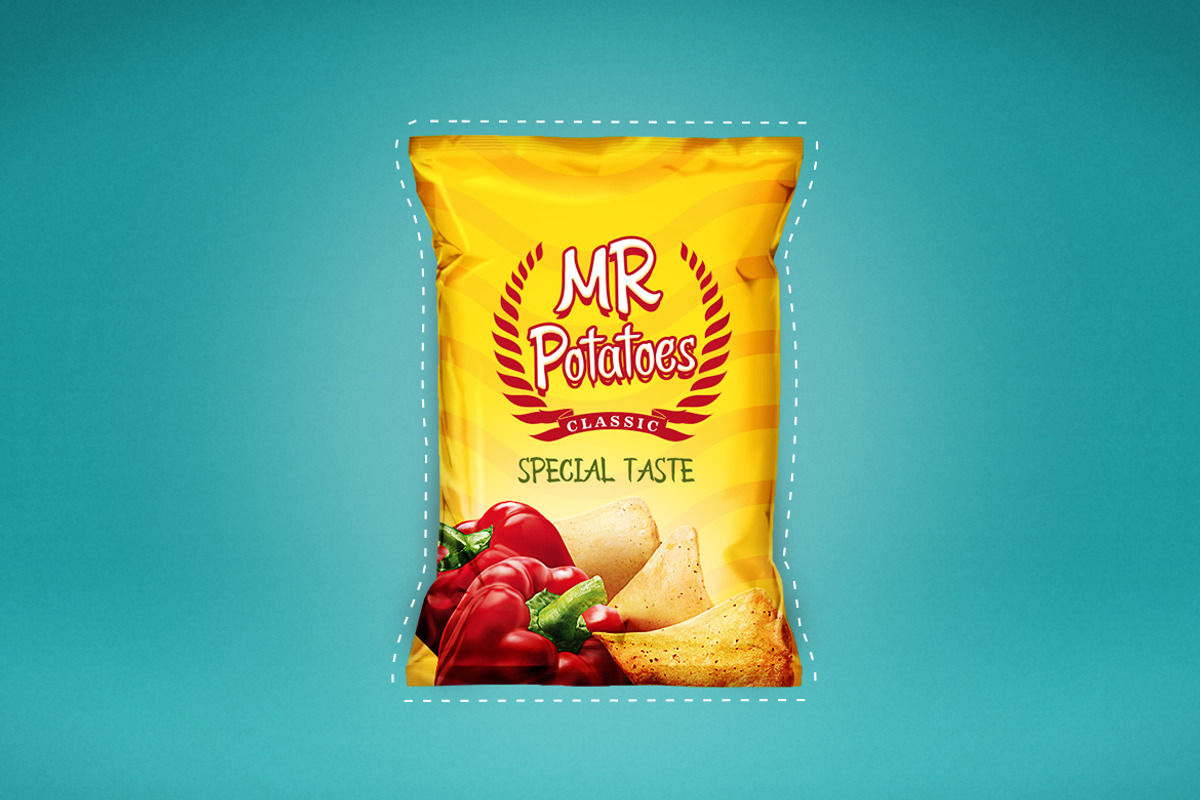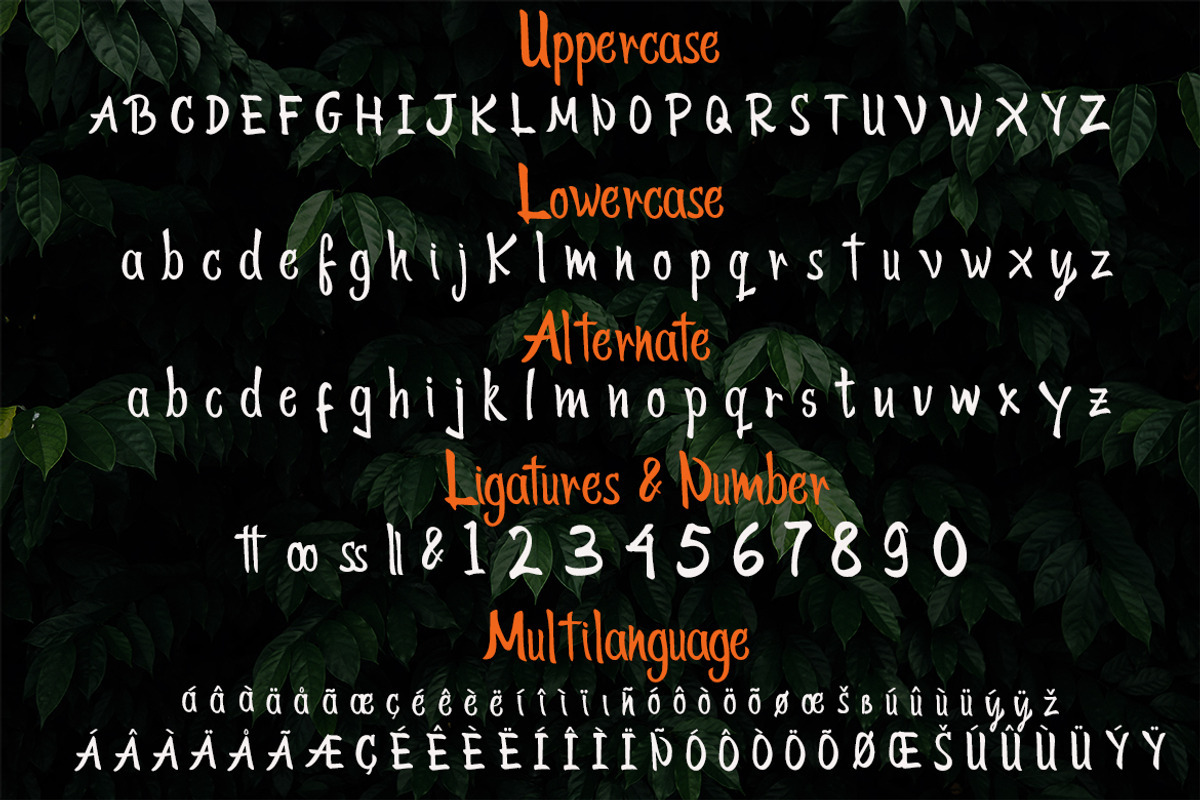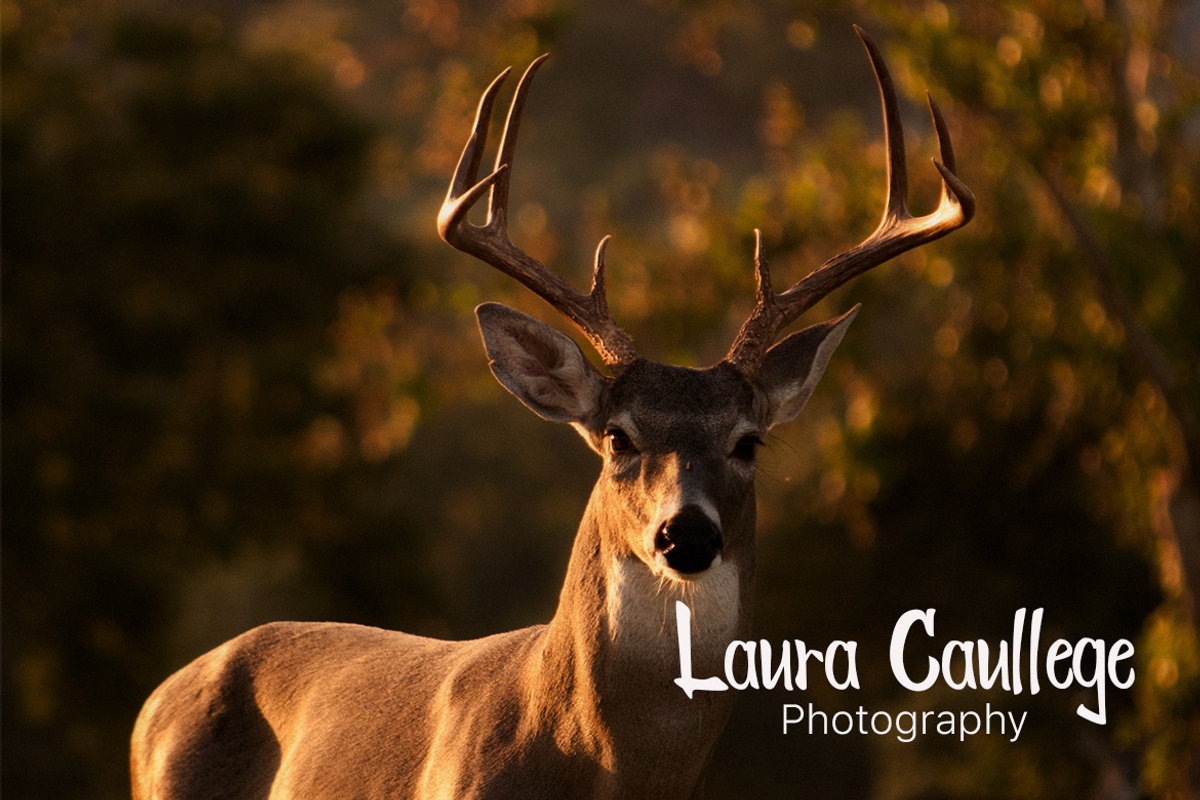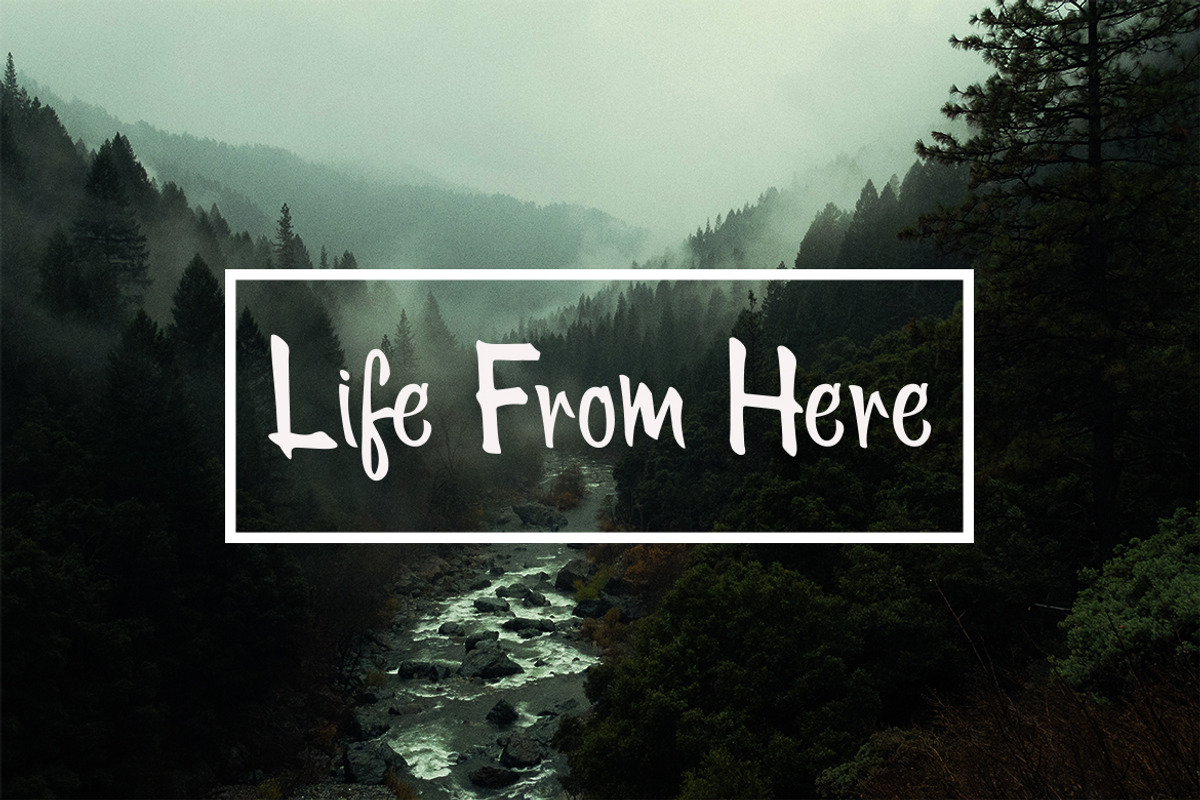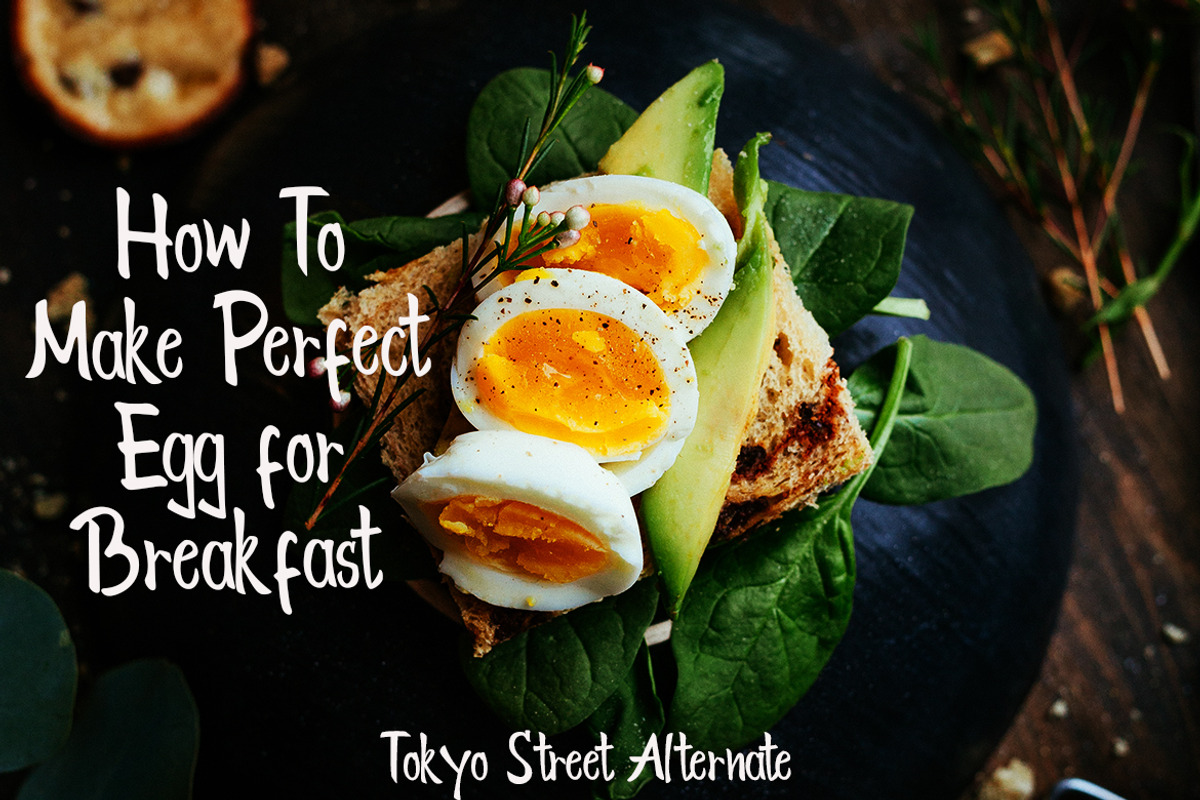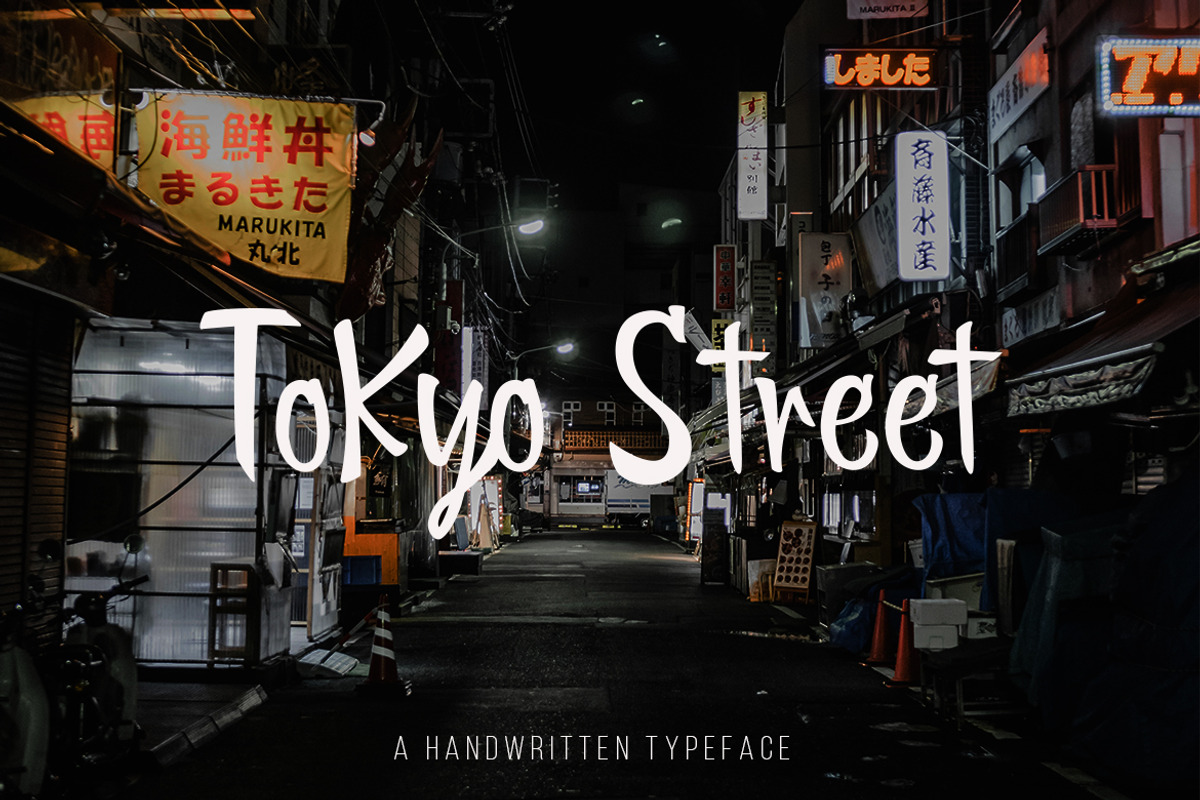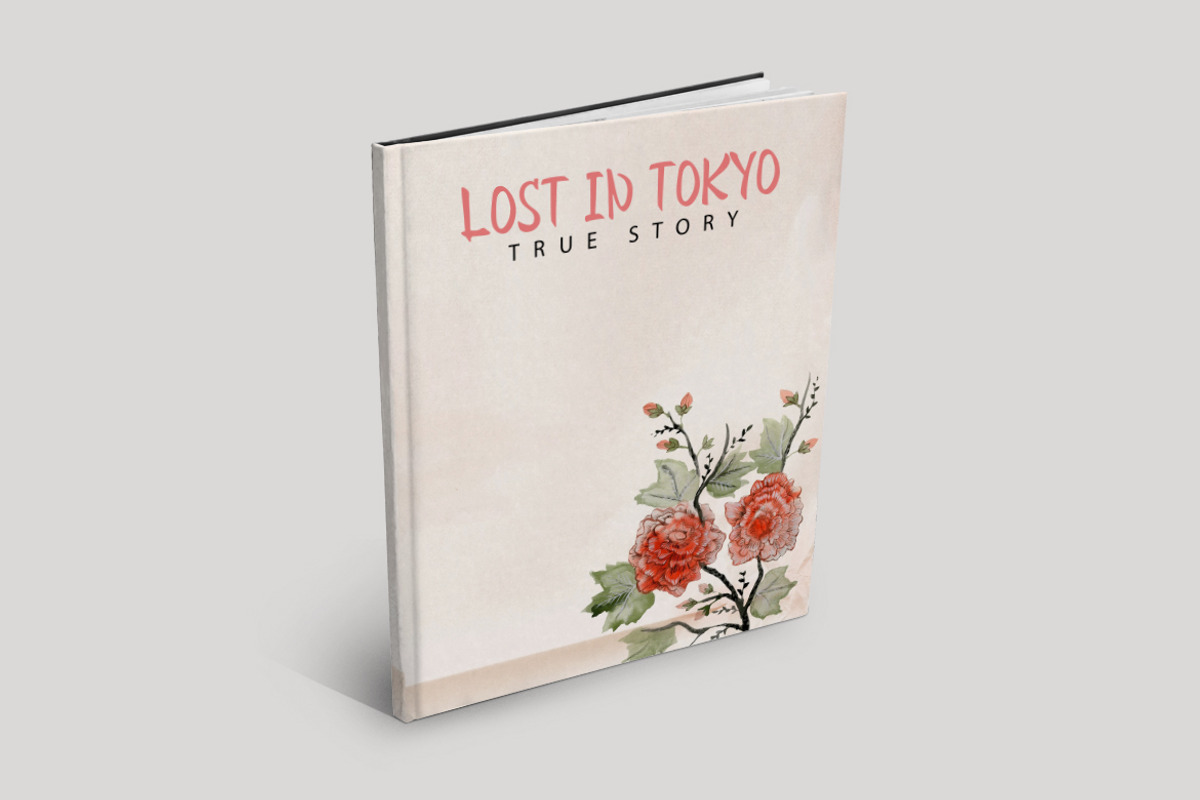
Tokyo Street - Handwritten Typeface
Introducing Tokyo Street - A Handwritten Typeface font, This awesome font is simple and easy to read.
Tokyo Street Font is perfect for branding projects, logo, wedding designs, social media posts, advertisements, product packaging, product designs, label, photography, watermark, invitation, stationery and any projects that need handwriting taste.
- Features :Ligatures, Alternate, Number, Punchtuation, Multilingual Support